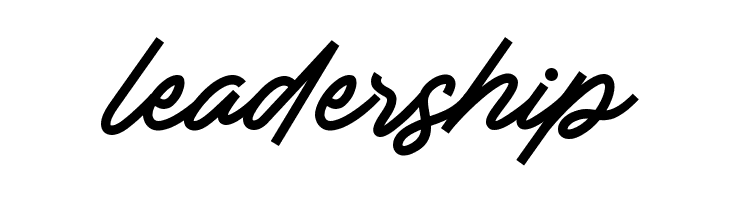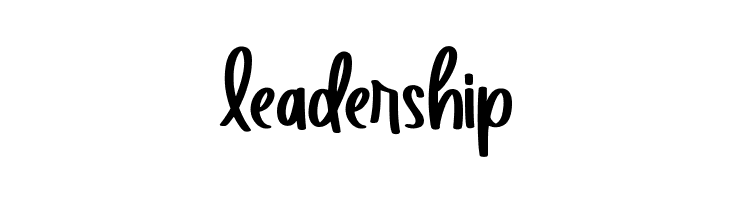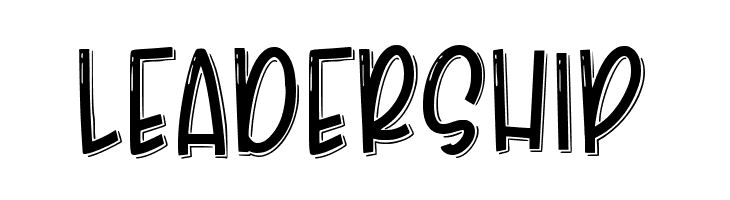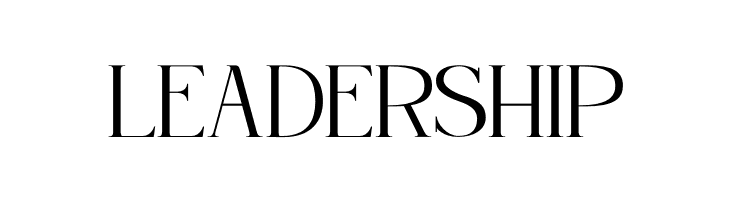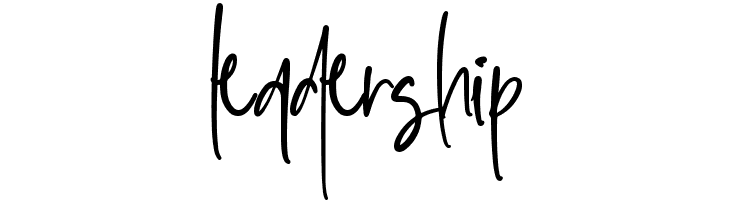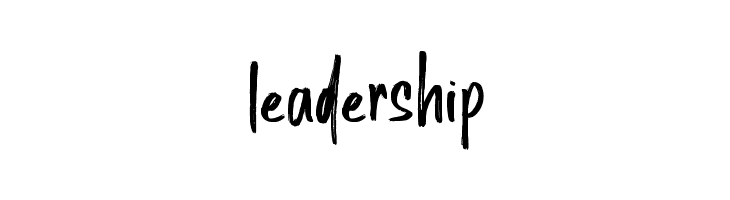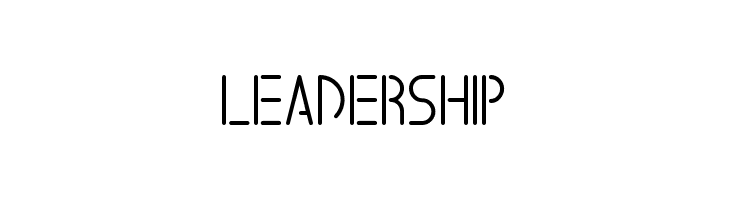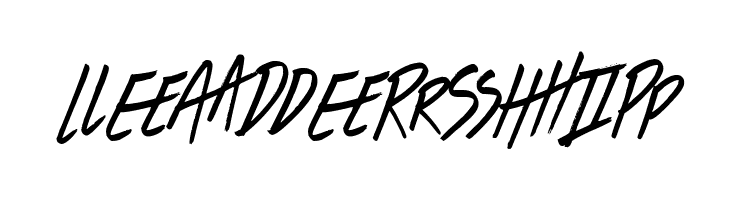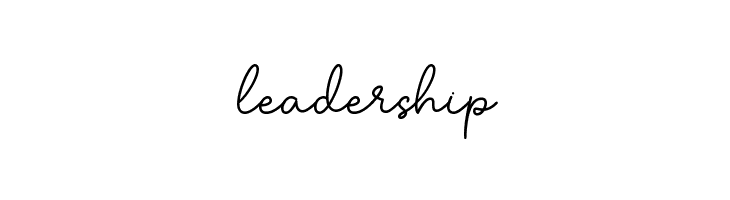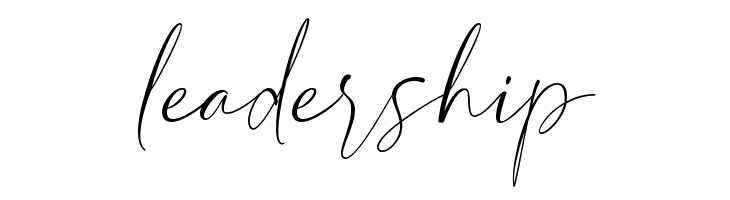
A bold, tall, and narrow font with a modern and impactful style.
Casual handwritten script font.
A bold, angular font with a dynamic, rebellious style.
A graceful and flowing script font with elegant, connected strokes.
A bold, brush-style font with an energetic and artistic flair.
A lively, flowing script font with elegant loops and a handwritten appeal.
A fluid, elegant handwritten font with smooth, connected strokes.
A graceful script font with flowing, elegant strokes and refined curves.
A bold, expressive handwritten font with fluid strokes and a playful touch.
A playful and bold font with irregular, exaggerated letterforms and a whimsical style.
A lively, expressive handwritten font with fluid, dynamic strokes.
A playful, casual handwritten font with smooth, flowing curves.
A playful and elegant cursive font with a hand-drawn charm.
Casual handwritten font with playful, rounded strokes.
A playful, handwritten font with smooth, flowing lines and a casual style.
A playful, casual handwritten font with flowing, slightly irregular letterforms.
A lively and energetic handwritten font with fluid strokes.
A lively, casual handwritten font with fluid strokes and a personal touch.
A bold, geometric font with a futuristic and digital aesthetic.
A hollow, geometric, italic font with bold, angular lines.
A flowing, cursive font with elegant, connected letters and a natural handwriting style.
A whimsical, decorative font with playful swirls and curls.
A playful handwritten font with tall, narrow letters and a casual style.
An elegant, cursive font with decorative flourishes and smooth curves.
An elegant, flowing script font with a handwritten style.
A whimsical and elegant script font with playful loops and swirls.
A bold, flowing script font with elegant curves and high contrast.
A sophisticated script font with elegant, flowing strokes and artistic flourishes.
A lively and expressive handwritten font with fluid, dynamic strokes.
A dynamic, cursive script font with bold, sweeping strokes.
A whimsical, handwritten font with fluid, cursive strokes and artistic flair.
A bold, modern sans-serif font with clean lines and a slightly condensed style.
A dynamic and elegant script font with a flowing, handwritten style.